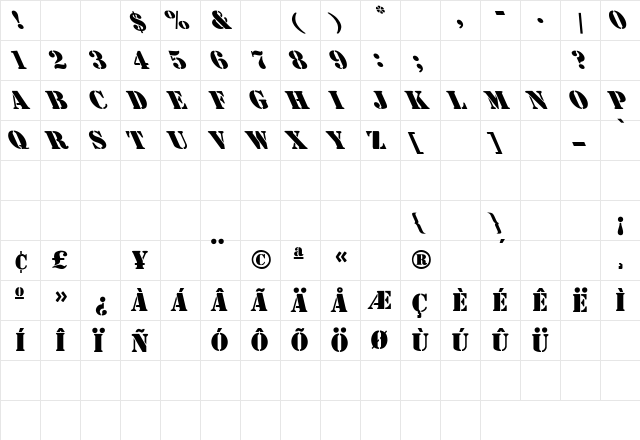
Stenciled Out Left Regular
Design Context for Stenciled Out Left Typeface
Stenciled Out Left has the rough pragmatism of spray-painted stencil signage, adding a raw, street-level authenticity to designs.
Ideal for industrial branding, streetwear, military-adjacent aesthetics, and urban signage projects.